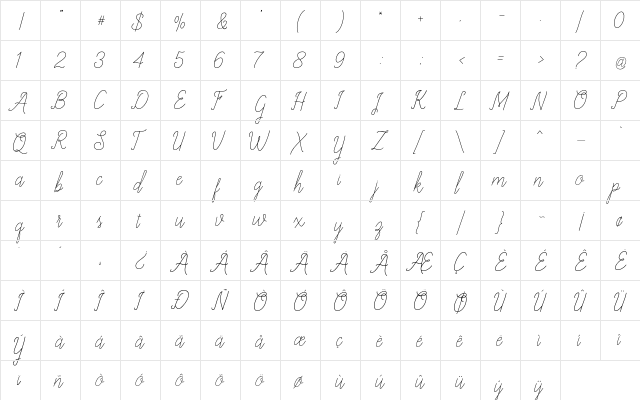
Allexandrea Regular
Design Context for Allexandrea Typeface
Allexandrea takes a measured approach to typography — its balanced proportions and neutral character make it a reliable workhorse for both digital and print work.